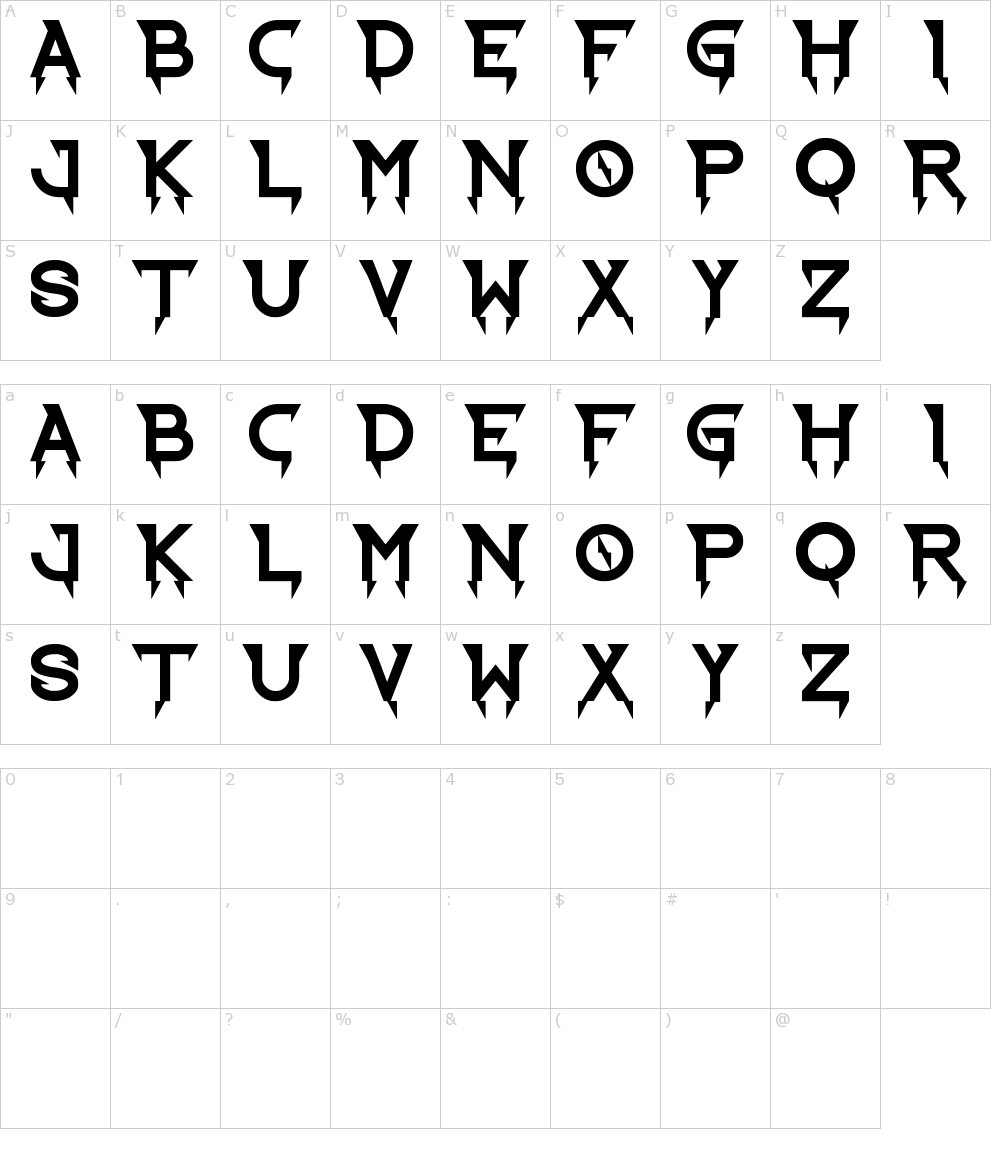
List Of Lightning Fonts 2022. Lightning font text is the best online font changer, allowing users to copy and paste gorgeous fonts, intriguing symbols, and text into social media posts. We have 7 free electric, lightning fonts to offer for direct downloading · 1001 fonts is your favorite site for free fonts since 2001
(page 2) www.dafont.com we would like to show you a description here but. Click now to create a custom image with your own words that. Lightning struck font includes full set of uppercase and lowercase basic characters, numerals and punctuation.